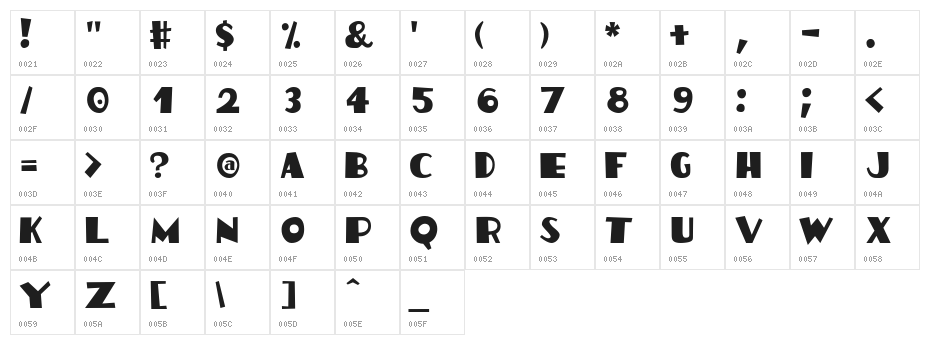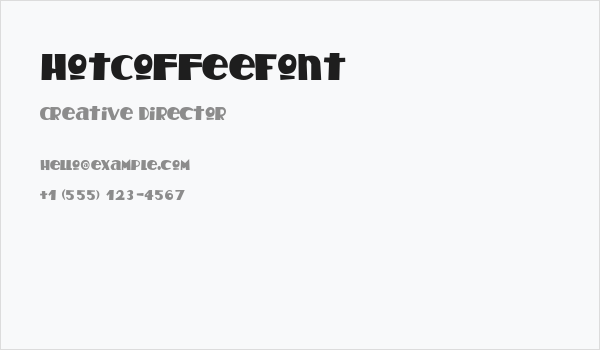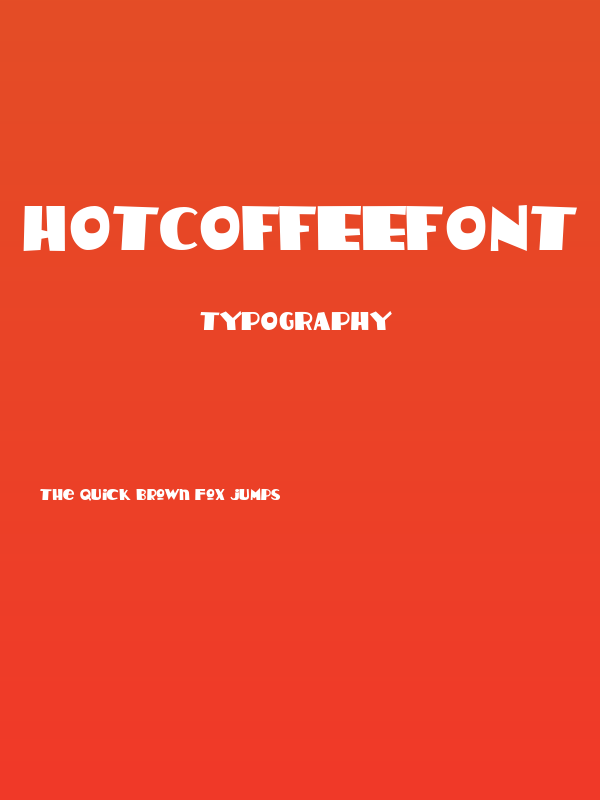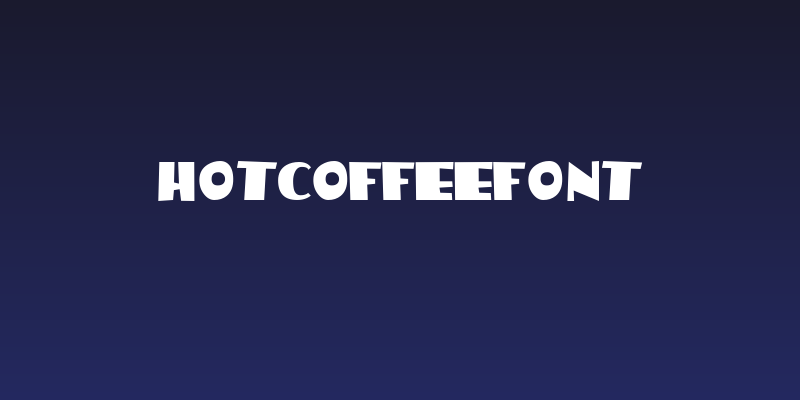
HotCoffeeFont Font
HotCoffeeFont Description
This font features a bold and playful design with a distinct geometric style. The characters are crafted with sharp angles and a strong presence, making it ideal for attention-grabbing headlines. The uppercase and lowercase letters maintain a consistent weight, providing a cohesive look. Numbers and special characters are designed with the same boldness, ensuring uniformity across all text elements. The font's unique style is both modern and slightly retro, offering versatility for various creative projects.
| Proposed Projects | Ideal for branding, posters, and advertising where a strong visual impact is needed. |